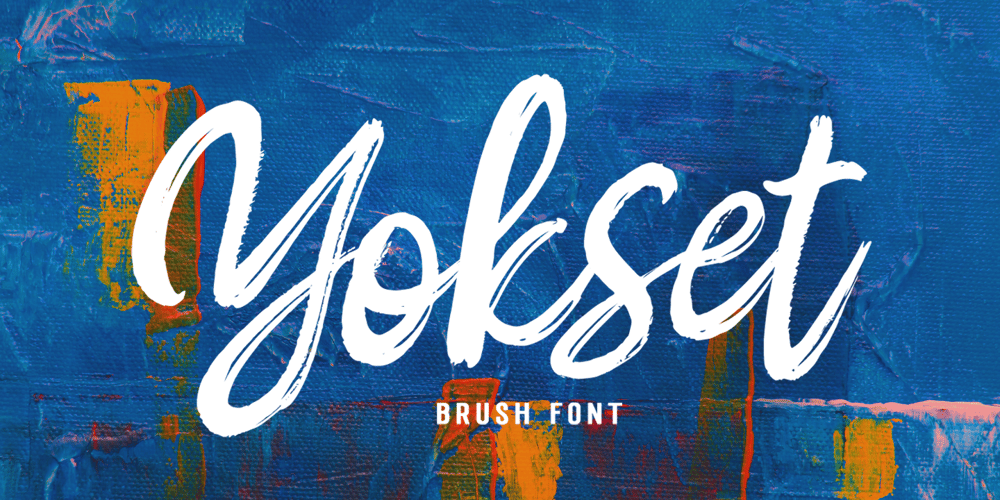
Yokset Font Family was designed by Mauli Zari and published by Dhan Studio. Yokset contains 1 styles and family package options. Yokset is a cool brush font because it is deliberately made with a little texture that looks natural and beautiful. It contains several ligatures and alternates which designers can use for any current or modern design.Yokset is suitable for use in title design, clothing, invitations, book tittles, stationery designs, quotes, branding, logos, greeting cards, t-shirts, packaging designs, posters and more.